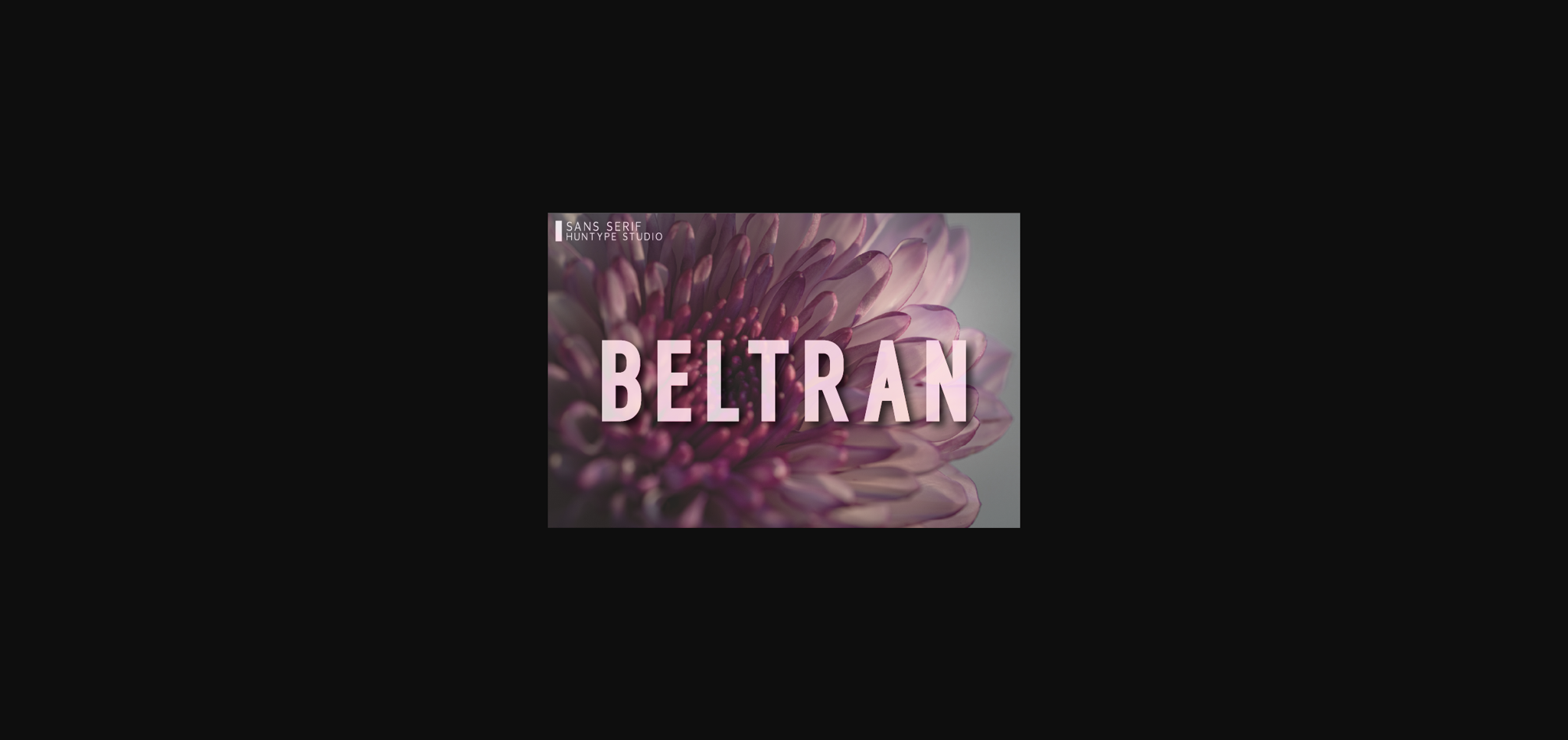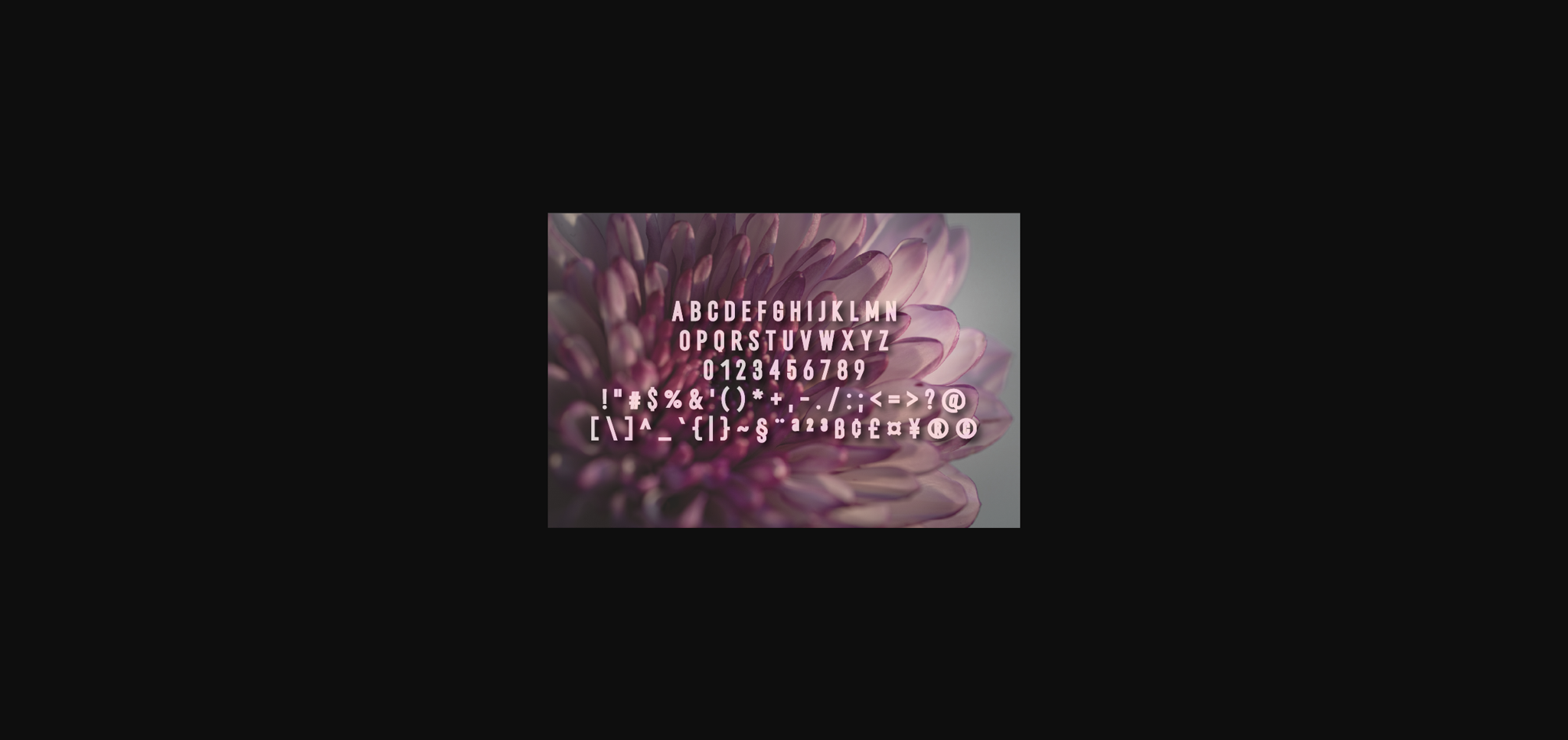
HomeSans Serif FontsBeltran Font Sans Serif Fonts Beltran Font FacebookXPinterestWhatsApp 1 of 4 ... Beltran Font Poster 2... Beltran Font Poster 3... Beltran Font Poster 4... About Beltran Font Beltran is a distinct and elegant sans serif font. It will look particularly adept when used in logos, branding, packaging design, and much more. This masterfully designed typeface is a true must-have. DOWNLOAD NOW People also explored Brithany Font Mistery Heart Font Football Varsity Font The William Font Apexsans Font Food Chicken Font Espresso Font Beastype Font Rustic Blizzard Font 325 0 TagsBeltranBeltran Font Previous articleFiern FontNext articleToelust Font LEAVE A REPLY Cancel reply Comment: Please enter your comment! Name:* Please enter your name here Email:* You have entered an incorrect email address! Please enter your email address here Website: Save my name, email, and website in this browser for the next time I comment. Personal Use Free Avatarock Personal Use Free Read more about this font Equalizer Script Personal Use Free Read more about this font Little Pigeon Personal Use Free Read more about this font Heart Memory Personal Use Free Read more about this font BLOG Using Fonts in Digital Marketing: Tips to Strengthen Your Brand Identity In the realm of digital marketing, every visual element plays a crucial role in shaping a brand's identity, and fonts are no exception. The... How to Cut Any Font on Cricut: Convert a Font to SVG (Free) Transform Your Website: Elevate Your Typography with 7 Best Web Font Generators 5 Fonts That Will Dominate Design Trends in 2026